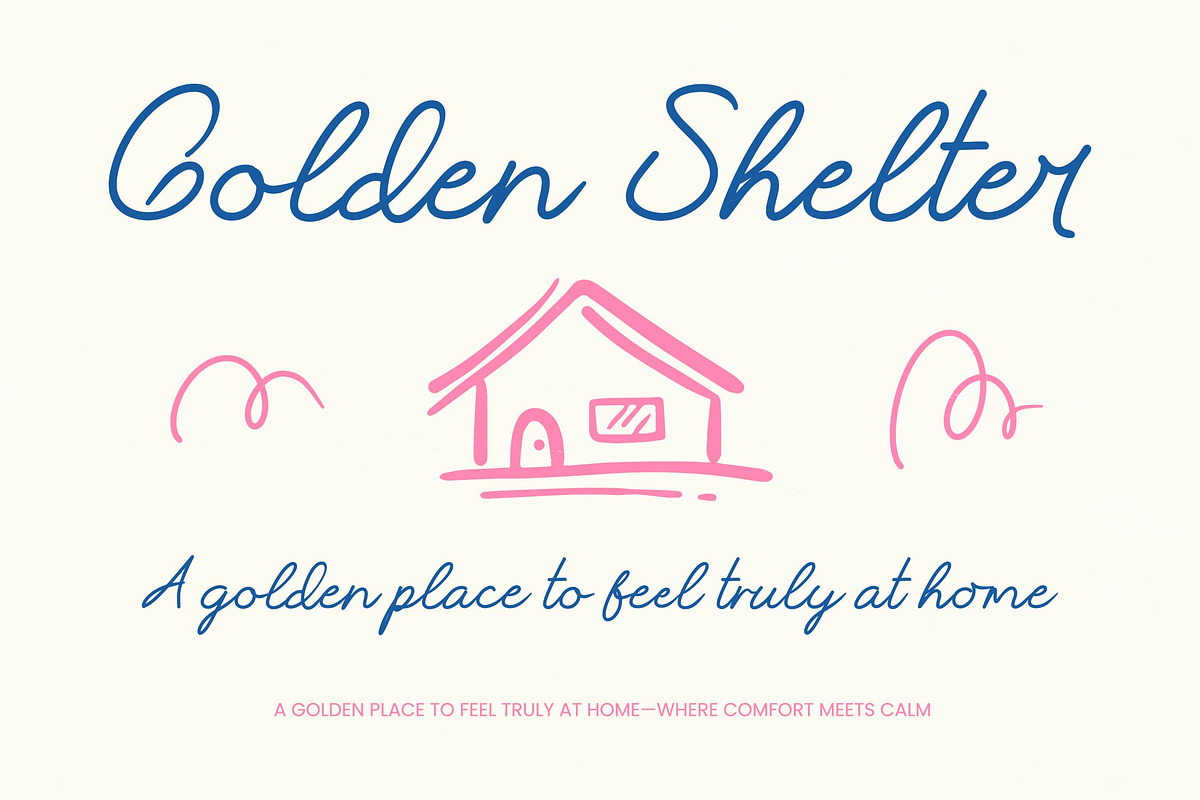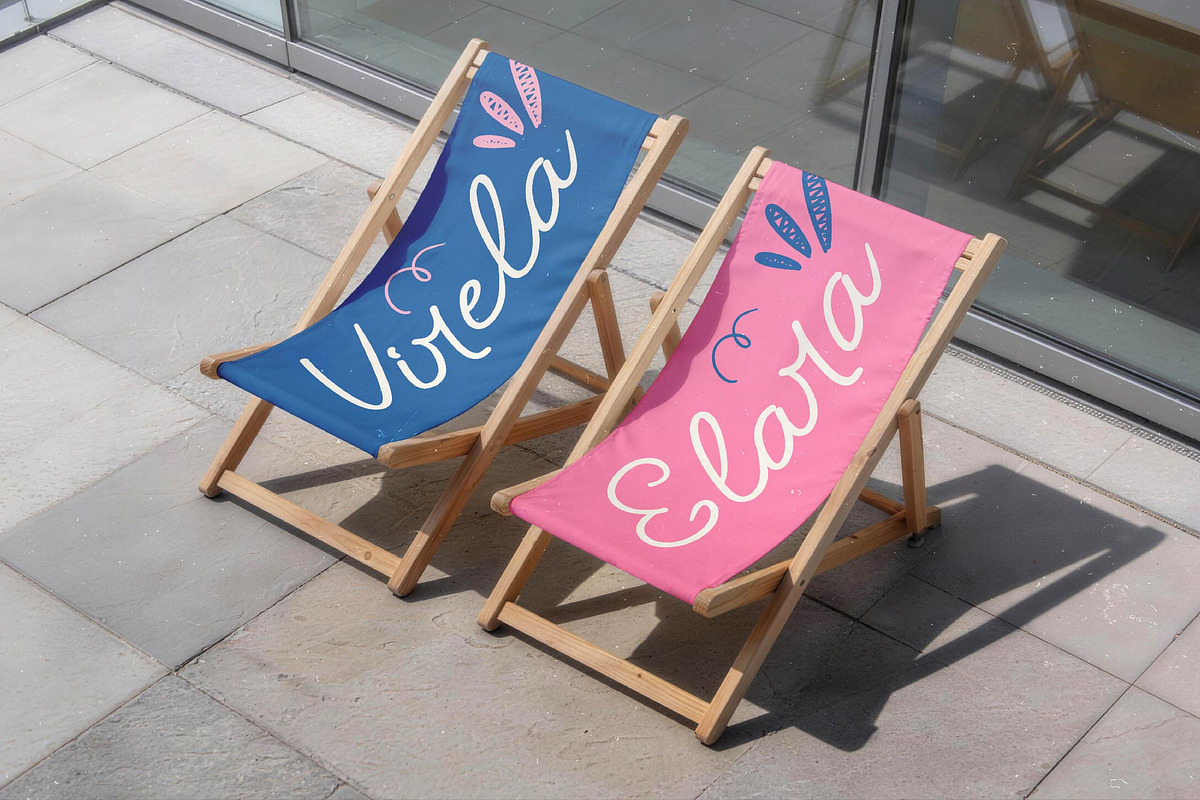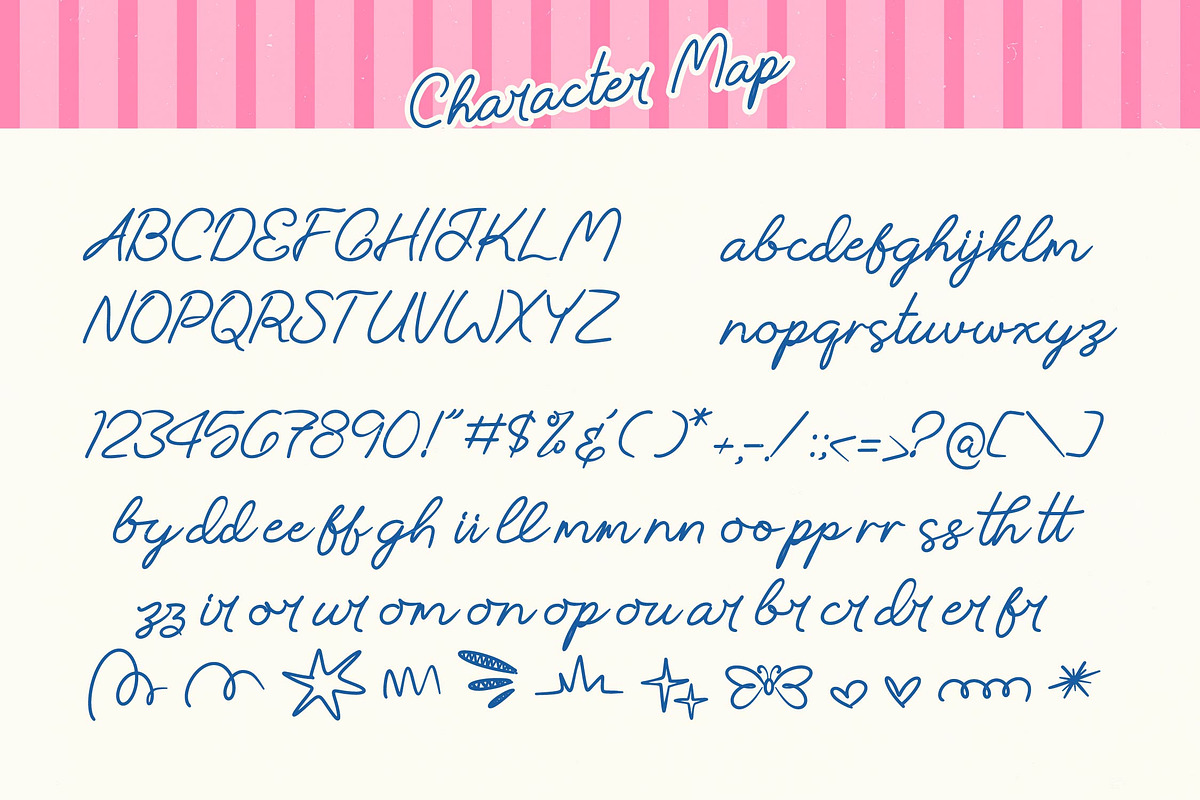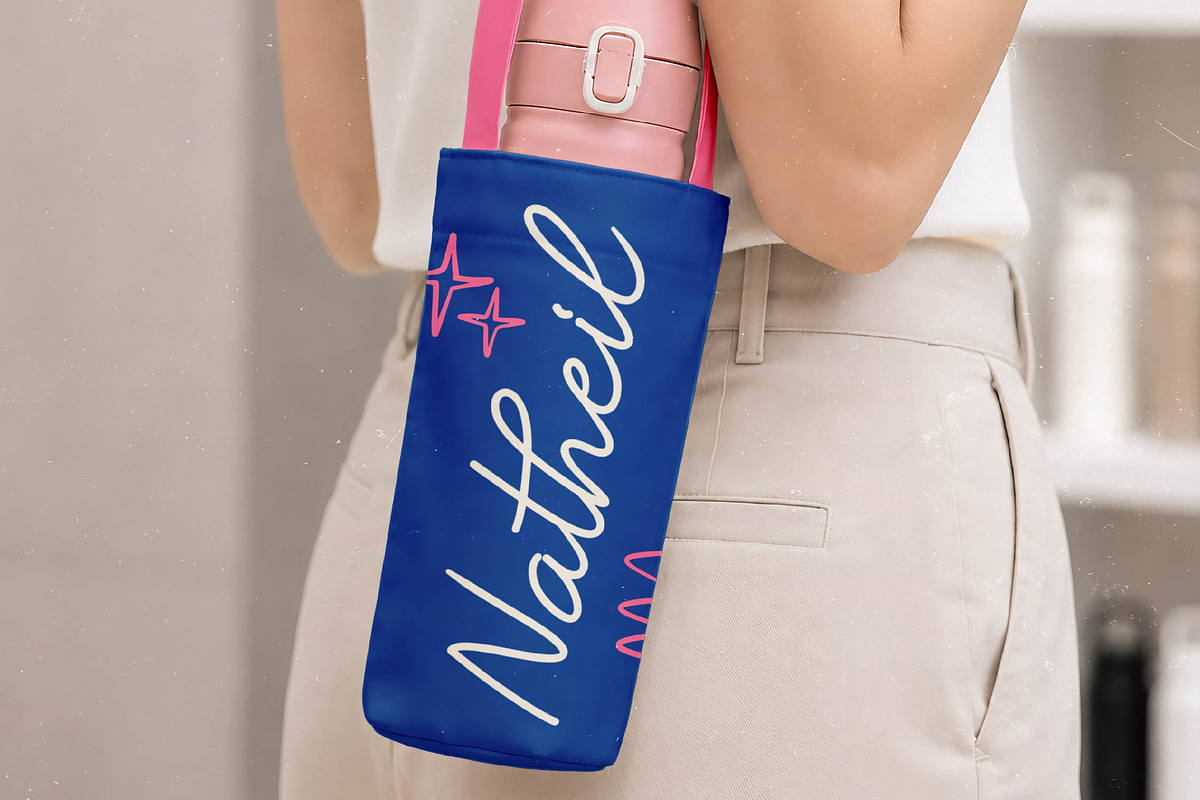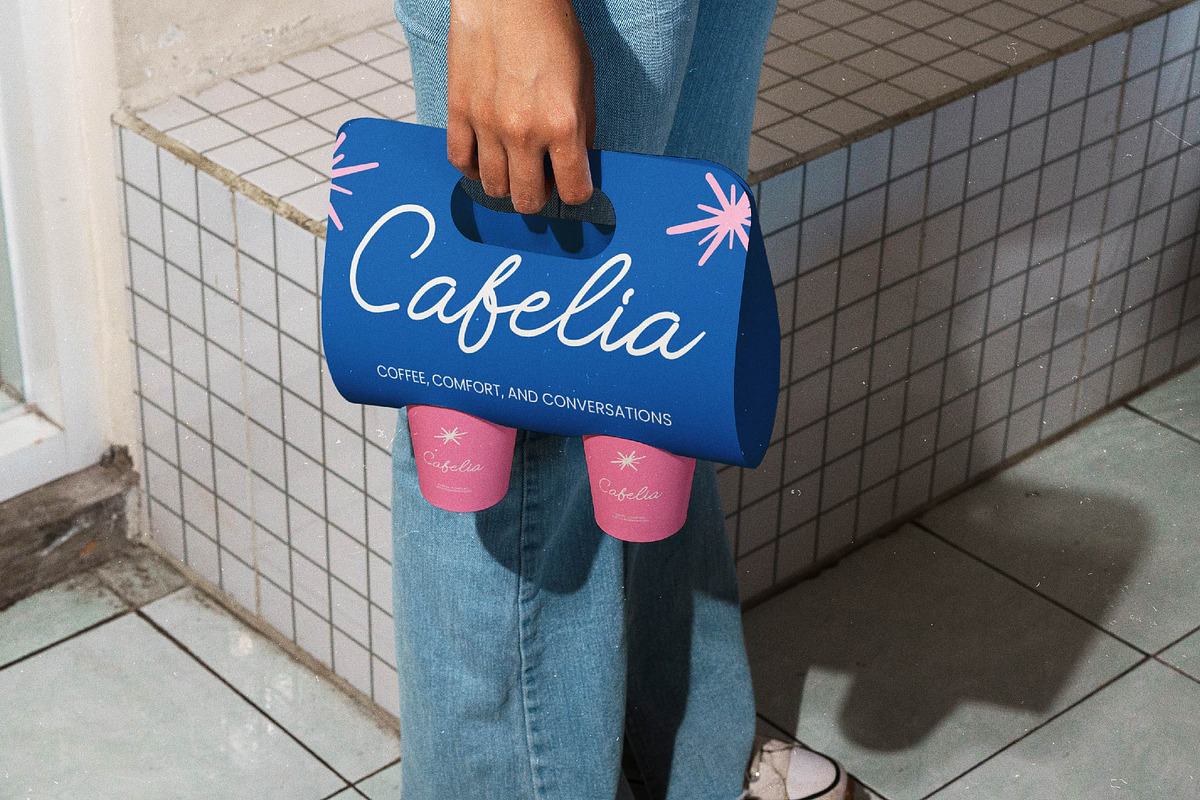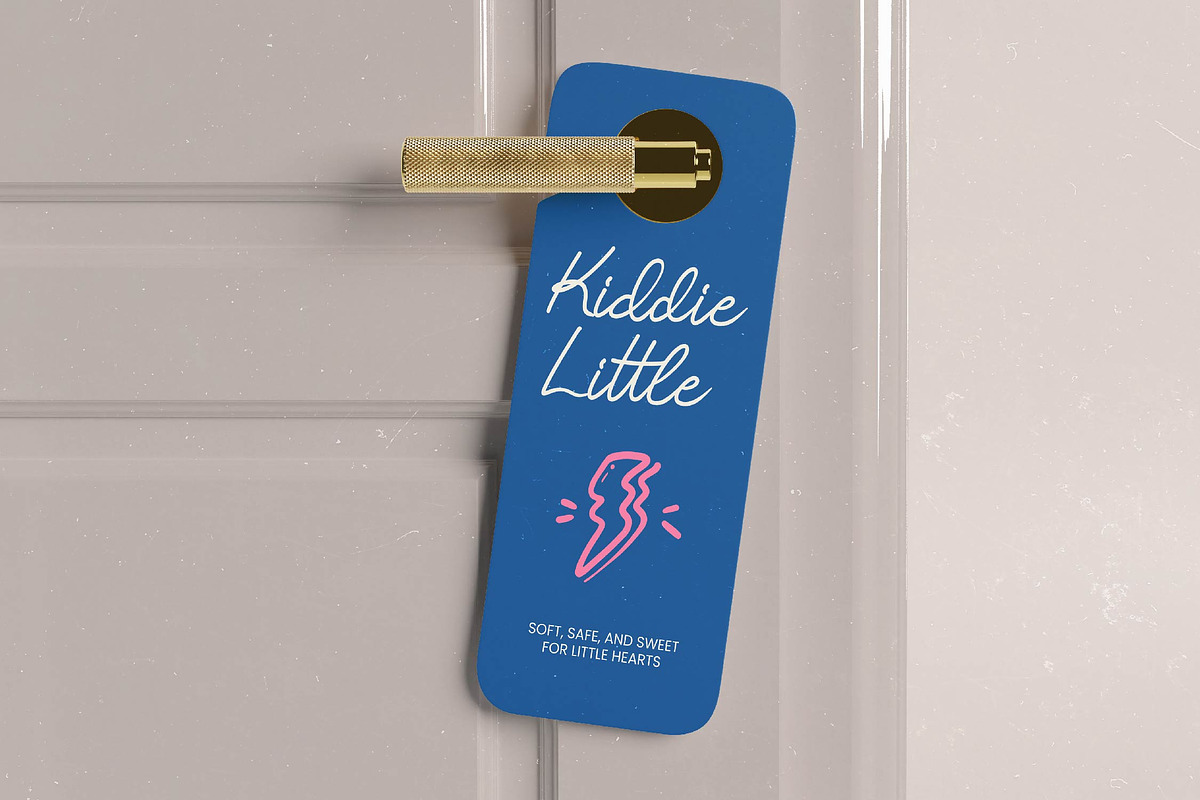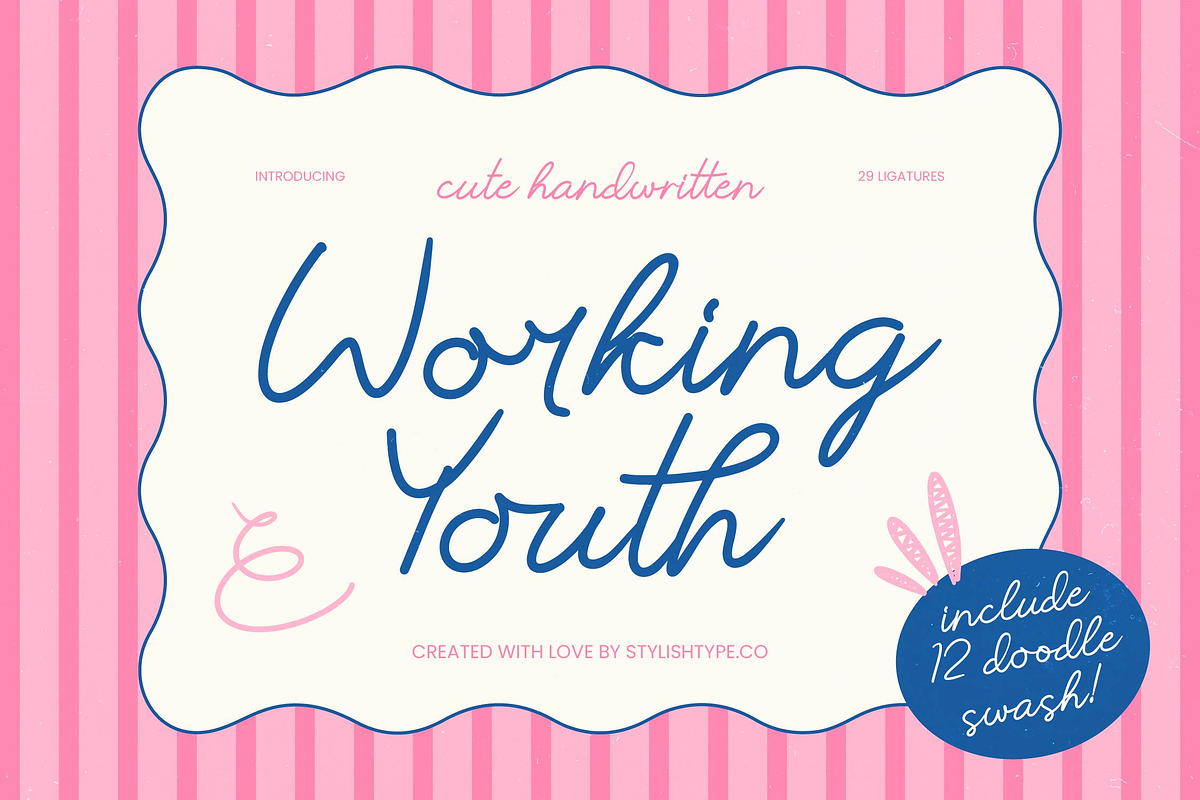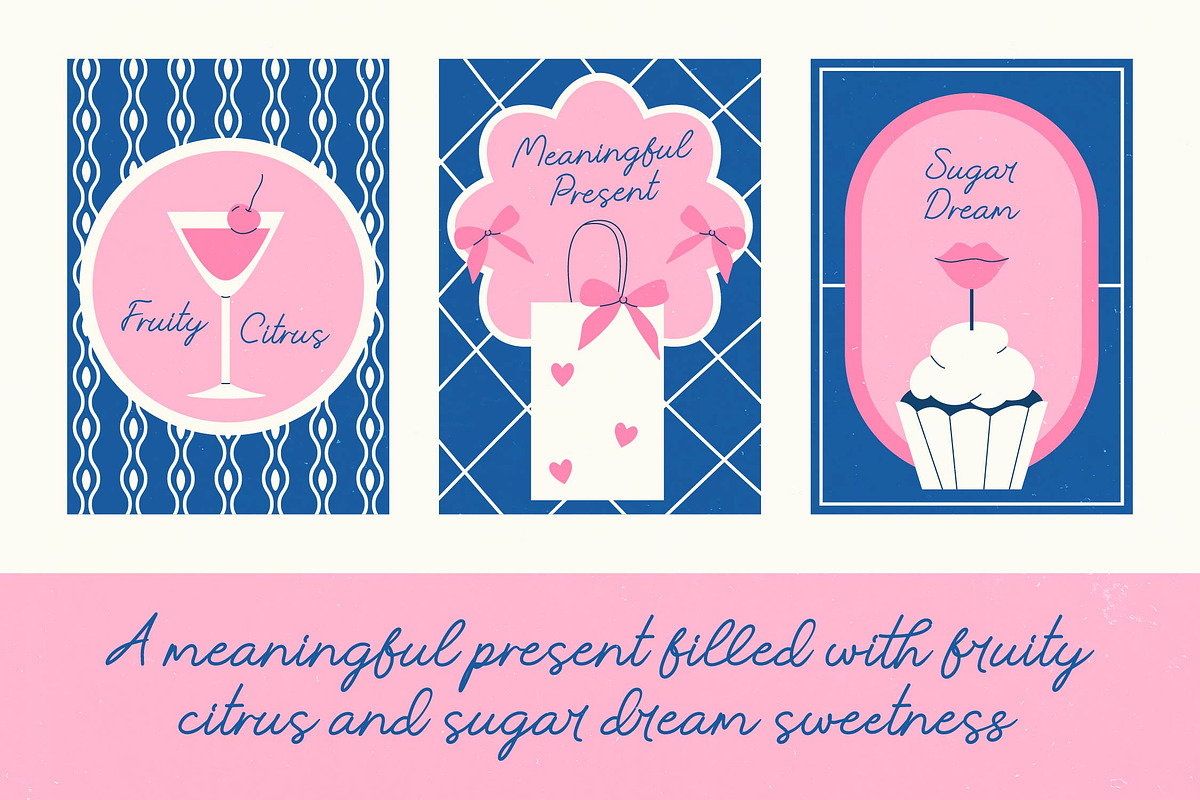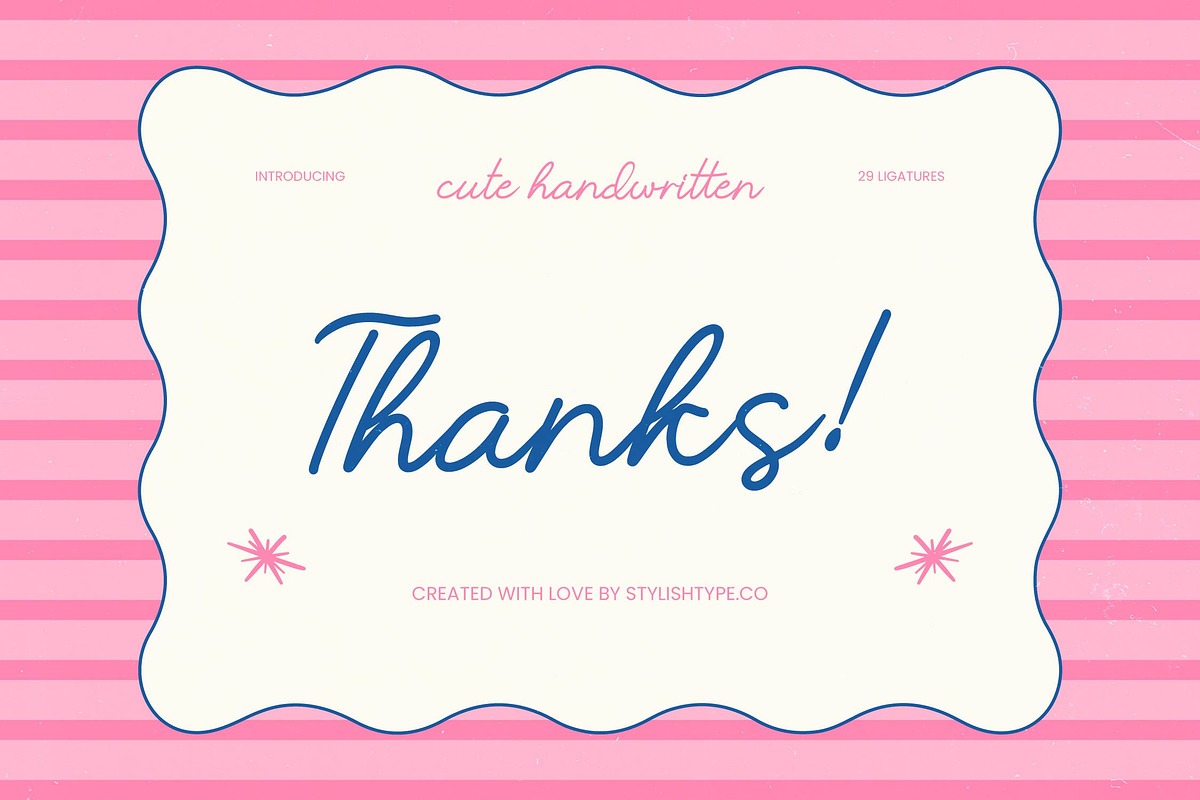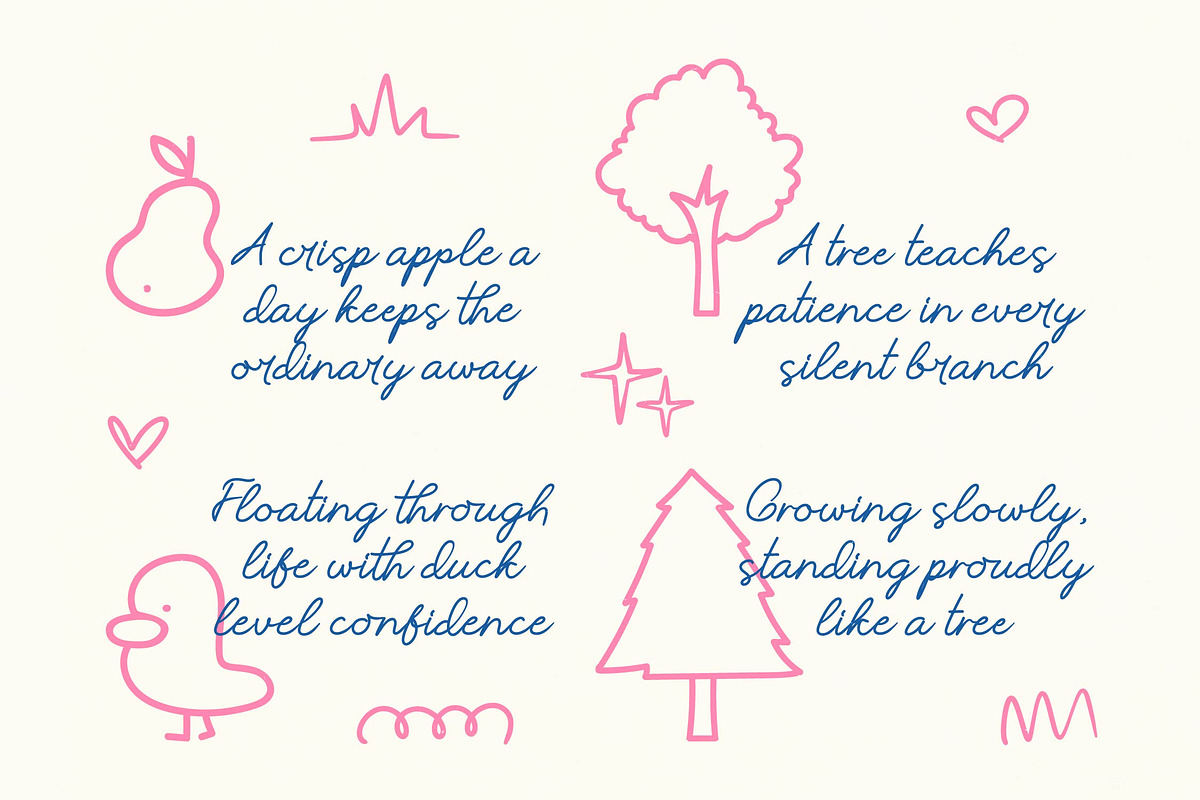
Working Youth Cute Handwritten
Working Youth - Cute Handwritten , Elevate your creative vision with the charm of Working Youth - Cute Handwritten, a typeface designed to bring a warm, authentic aesthetic to every project. This hand-drawn script balances casual elegance with professional legibility, making it an essential asset for designers seeking a personal touch. Its fluid lines and organic strokes ensure that your messaging feels both approachable and uniquely crafted for the modern market.
Experience the technical excellence of a font built for the high-demand global marketplace. With its extensive multilingual support, Working Youth - Cute Handwritten adapts seamlessly across global markets, making it incredibly versatile for international projects. Beyond its linguistic reach, the typeface includes 29 premium ligatures and 12 custom doodle swashes, allowing for a truly bespoke typographic experience that stands out across digital and print media.
Perfect your brand presentation with a font that excels in high-end commercial applications and artistic endeavors. The versatile nature of Working Youth - Cute Handwritten makes it the ideal choice for boutique branding, personalized packaging, and editorial layouts. It is particularly effective for social media graphics, lifestyle photography overlays, and invitation design, providing a sophisticated yet whimsical edge to your visual storytelling.
Secure a competitive advantage by integrating Working Youth - Cute Handwritten into your design toolkit to achieve immediate results. This typeface offers a distinctive visual identity that captures the essence of youthful energy while maintaining a refined commercial appeal. Whether you are launching a new product line or refreshing an existing brand, Working Youth - Cute Handwritten delivers the visual impact and emotional resonance required to engage today's discerning consumers.